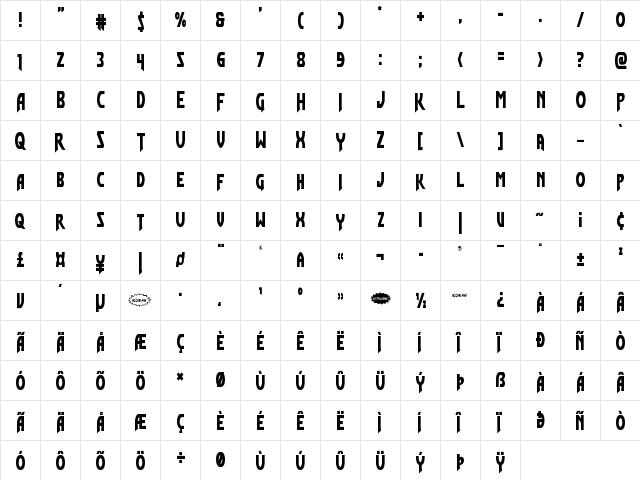
Flash Rogers Straight Condensed Condensed
Design Context for Flash Rogers Straight Condensed Typeface
Flash Rogers Straight Condensed takes a measured approach to typography — its balanced proportions and neutral character make it a reliable workhorse for both digital and print work. The condensed width makes it efficient for tight spaces without sacrificing legibility.